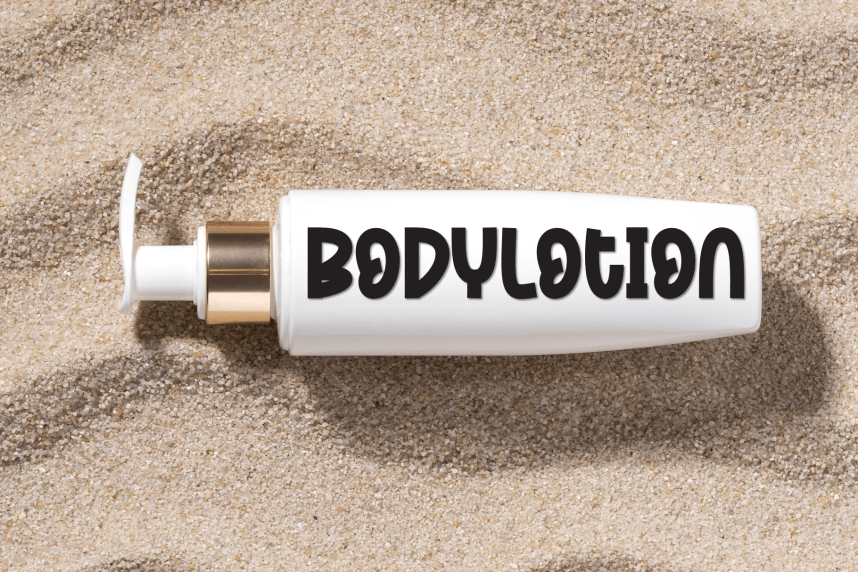
Vintage Rainbow – Playful And Unique Font
Vintage Rainbow – Playful And Unique Font is a sweet and friendly handwritten display font. Cute and fun, this font is ideal for writing wedding invitations, cards, or any other design that might need a playful touch!